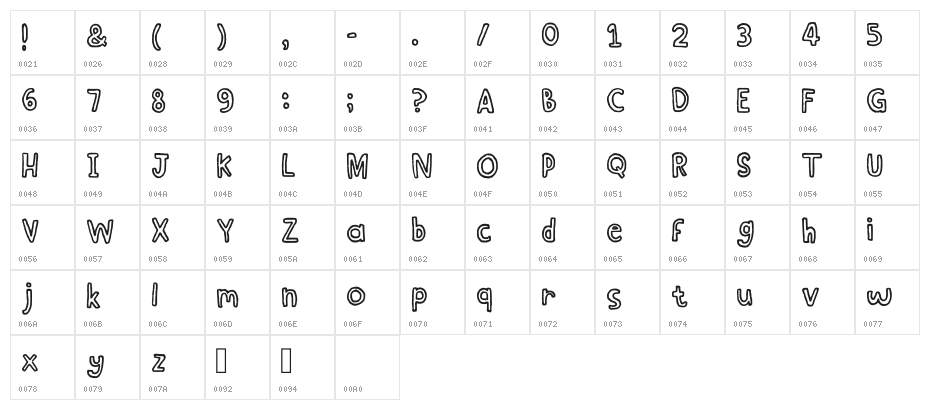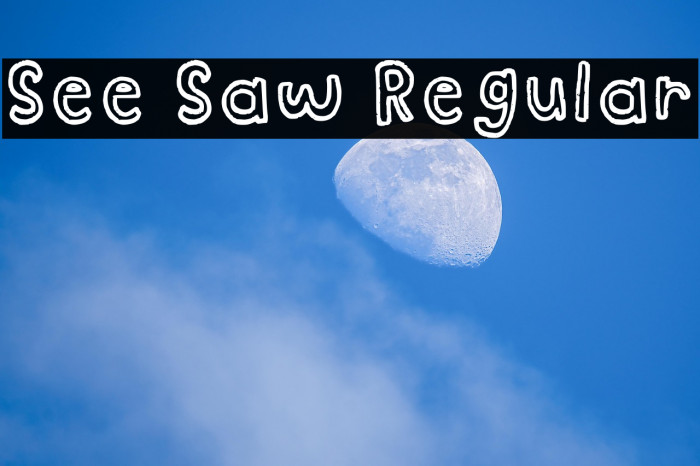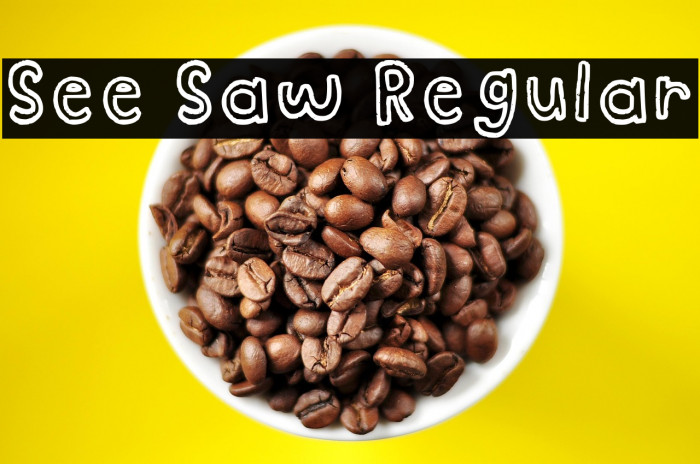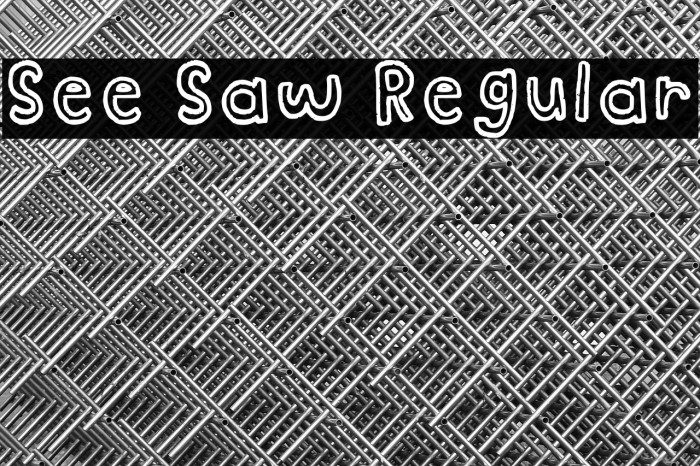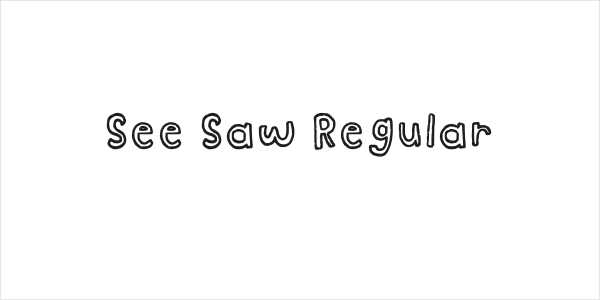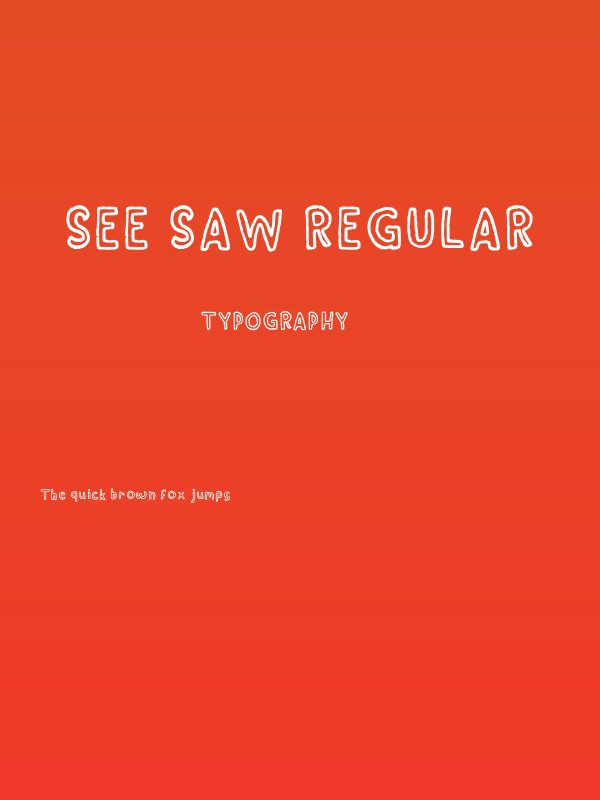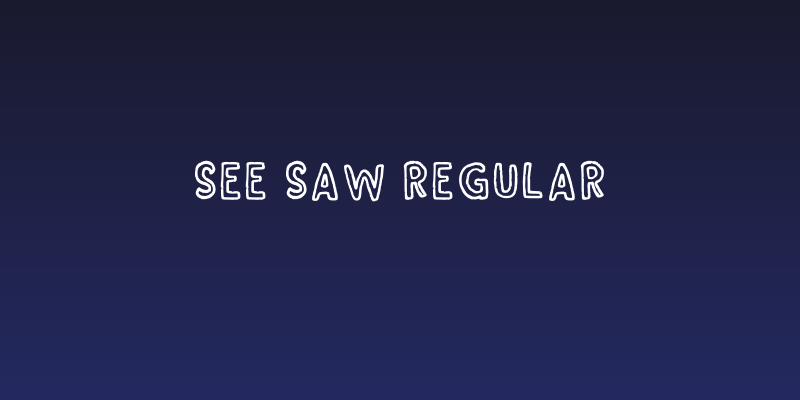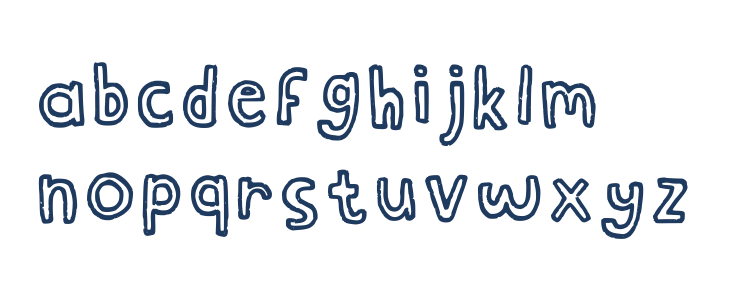
See Saw Regular Font
See Saw Regular Description
This playful and whimsical font features a hand-drawn style with a bold outline that gives it a unique, cartoonish appearance. The characters are slightly irregular, adding to the casual and informal feel. Each letter is distinct, with rounded edges and a consistent stroke width that maintains readability while providing a fun, artistic touch. The font's quirky nature makes it ideal for projects that require a light-hearted and approachable aesthetic. Its bold presence ensures that it stands out, making it suitable for attention-grabbing designs.
Overall StyleWhimsical, Playful
Proposed ProjectsIdeal for children's books, comic strips, playful branding, and creative posters.